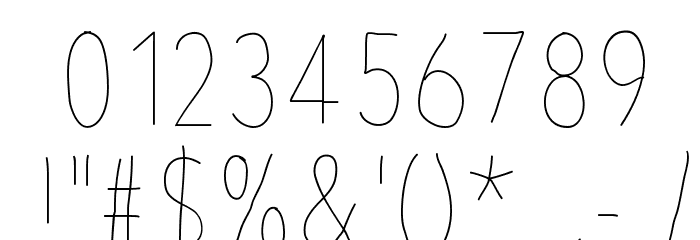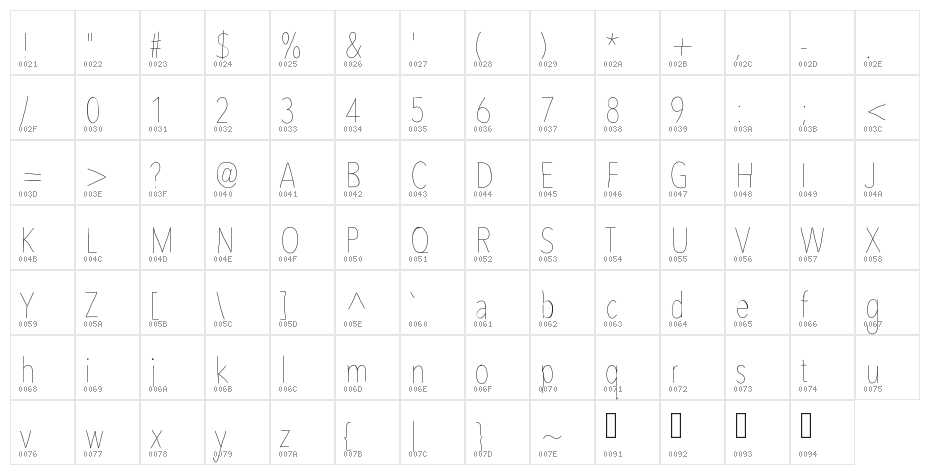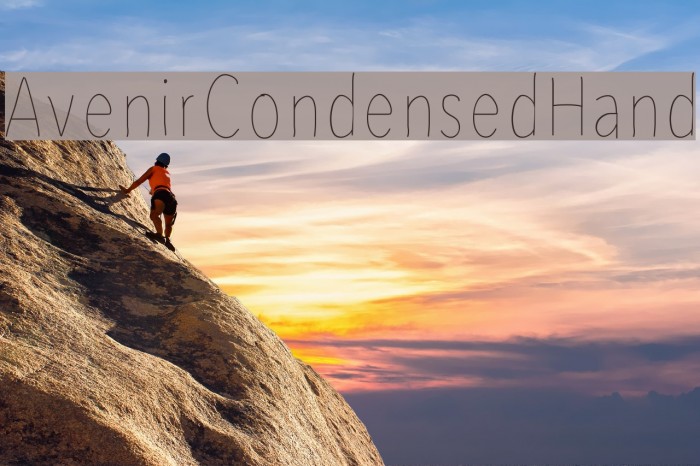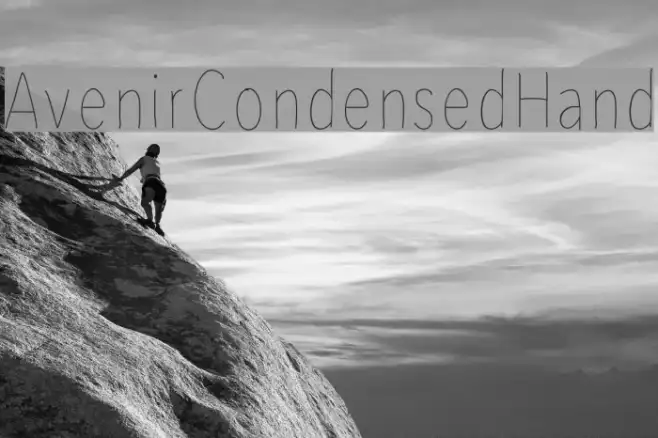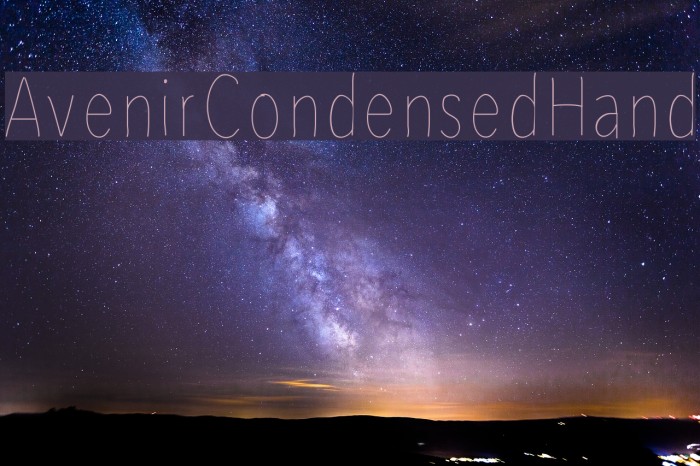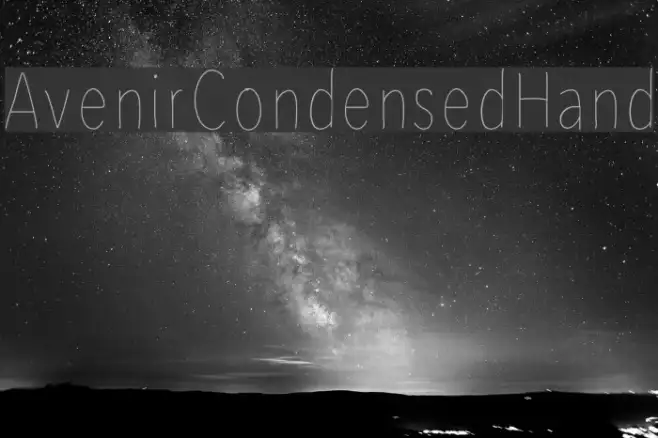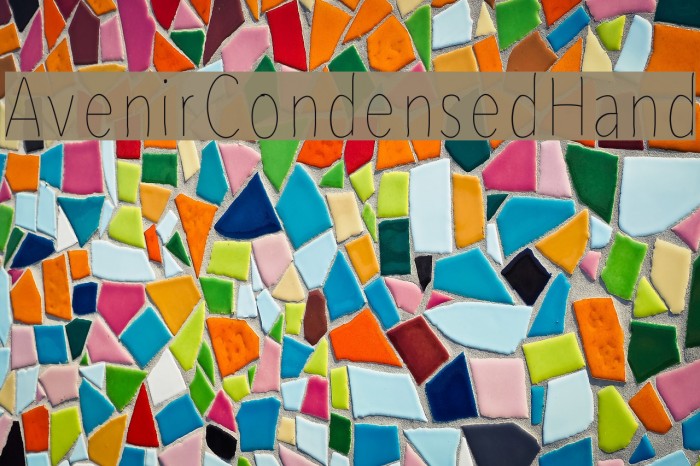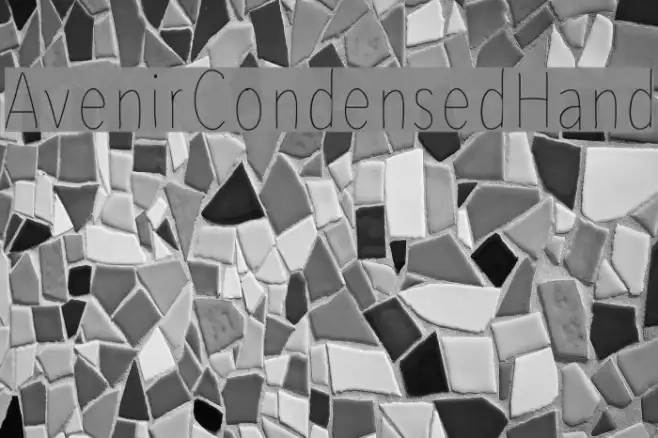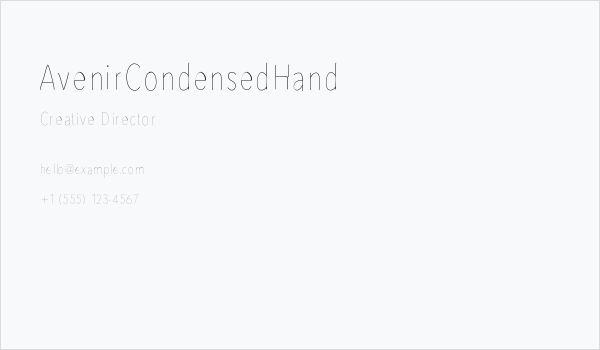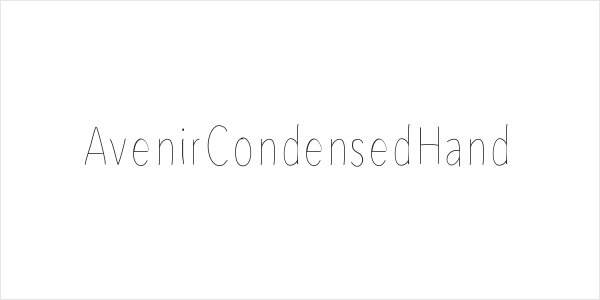
AvenirCondensedHand Font
AvenirCondensedHand Description
This font features a clean, minimalist design with a hand-drawn aesthetic. The characters are tall and narrow, giving it a condensed appearance. The strokes are consistent in width, creating a uniform look across all letters and numbers. The uppercase letters are slightly taller than the lowercase, maintaining a balanced proportion. The font has a casual, informal feel, making it suitable for projects that require a personal touch. The numerals and special characters are designed to match the overall style, ensuring cohesion throughout any text. The simplicity of the design allows for easy readability, even at smaller sizes.
| Use Case | Headlines, Casual text, Invitations |
| Proposed Projects | Ideal for personal projects, invitations, greeting cards, and casual branding. |